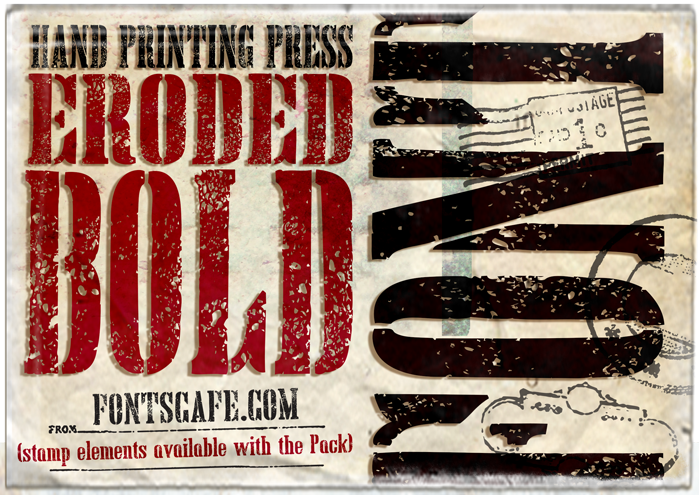
"Hand Printing Press Eroded Bold" font, like the name suggest, comes from the idea of those sheets of cardboard (o other kind of material) where the letters have been cut off in order to be used as a pattern where the ink transfers, passing through the cut, leaving its "sign" on a surface, usually paper. This version of "Hand Printing Press" font (just one of the whole Hand Printing Press Pack that you can find here https://fontscafe.com/font/hand-printing-press-pack-fonts) has a strong structure with an eroded effect that reminds the irregularity of the press on the paper very common when those beautiful wooden letter blocks were used with the printing press devices, an art that still is fashinating most of us. You can find this specific version on this page https://fontscafe.com/font/hand-printing-press-eroded-bold-font. Terms of Use (short version): It's okay to use this DEMO version of "Hand Printing Press Eroded Bold" font for personal, non-commercial uses like designing greeting cards, invitations, labels, posters and even to create graphics for your personal blog. HOWEVER, if you decide to use this, or any other Fonts Caf� font for your business, please purchase a license: the prices are fair and you will be supporting a small, nice, independent font company. :) The typefaces we design and sell on our secure website are our livelihood. |